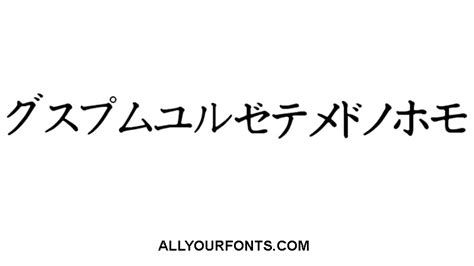
Write whatever you want in the text box below and we will replace all letters and numbers with a japanese styled font. Kanji font isn't easily read by people who don't know japanese, and if you want to see what it will look like in a tattoo, our japanese font generator can certainly help. Jet black calligraphy font (漆黒フォント) is a good looking japanese font that was written in brush. Use the controls below to customize your text string and its appearance. It produces 6 different japanese style text fonts, including the in case it wasn't clear, it should be noted that this generator doesn't convert your text to the actual japanese language! We have 34 free japanese fonts to offer for direct downloading · 1001 fonts is your favorite site for free fonts since 2001. Japanese fonts have many different character sets and encodings. Calligraphy fonts have many uses and are best paired with a simple body font for balanc e.
Most popular newest 3d aggressive all caps ancient arab asian black block blood bold brand brandname brush bubbly calligraphy cartoon christmas classic comic condensed cool curly cursive curvy cute dark decorative dingbats dingfonts generator categories. Use the controls below to customize your text string and its appearance. It converts a normal text to different free cool fonts styles, such as tattoo fonts, calligraphy fonts, web script fonts, cursive fonts, handwriting fonts, old english fonts, word fonts, pretty fonts, font art. Download free japanese fonts at urbanfonts.com our site carries over 30,000 pc fonts and mac fonts. Please review the product information for each font to ensure it will meet your requirements.
The following tool will convert your text to. This is a collaboration with experienced calligrapher, shigeru nomura. Choose from calligraphy letter themed fonts such as aspire font, champignon font, hanfordscript font and precious font. You can customize your experience with live font previews. With the calligraphy generator, you do not have to go through the hassle of downloading anything at all. The fancy calligraphy font style generator can be used by different kinds of people for a large number of purposes. Kanji is a japanese writing system based on modified chinese characters. This site allows you to generate text fonts that you can copy and paste into your instagram bio.
This is a collaboration with an experienced calligrapher, shigeru nomura. Create your own asian / japanese texts with this generator! It converts a normal text to different free cool fonts styles, such as tattoo fonts, calligraphy fonts, web script fonts, cursive fonts, handwriting fonts, old english fonts, word fonts, pretty fonts, font art. Welcome to the most complete japanese text generator on the internet! ✓ click to find the best 13 free fonts in the calligraphy japanese style. Choose from calligraphy letter themed fonts such as aspire font, champignon font, hanfordscript font and precious font. Each font is unicode™ encoded, and available in different formats. Art of japanese calligraphy is a trademark of natsuko hayashida. With the calligraphy generator, you do not have to go through the hassle of downloading anything at all. 60 free calligraphy fonts and lettering fonts download. Kanji is a japanese writing system based on modified chinese characters. Kanji font isn't easily read by people who don't know japanese, and if you want to see what it will look like in a tattoo, our japanese font generator can certainly help. True japanese calligraphy is an ancient and beautiful art form.